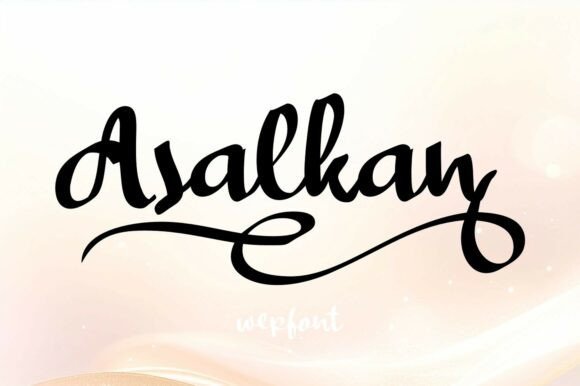
The Birth of a Masterpiece: Discovering the Asalkan Font
Have you ever found yourself scribbling notes in the middle of the night, pouring your heart and soul into a project that’s been brewing in your mind? For designers, this moment is all too familiar – the spark of creativity that sets the wheels turning and the imagination running wild. It’s in these moments that we search for the perfect tool to bring our vision to life, and that’s where the Asalkan Font comes in.
This elegant script font is a game-changer for designers, offering a sophisticated yet approachable aesthetic that’s perfect for creating unique typographic compositions. With its beautifully flowing strokes, dramatic swashes, and ligatures, the Asalkan Font is an excellent choice for projects requiring a touch of luxury and personalization.
Key Features of “Asalkan Font”
- Unique Characteristics: Asalkan Font features a unique blend of modern and traditional design elements, making it suitable for a wide range of applications, from fashion and lifestyle to technology and business.
Asalkan Font Review
Overall, I found the Asalkan Font to be an interesting addition to the world of typography. Here are some of its standout features.
- ✨ Unique aesthetic: The Asalkan Font has a distinct and eye-catching design that sets it apart from more traditional fonts.
- ✨ Versatile: I found the font to be quite versatile and suitable for a variety of applications, from headings to body text.
- ✨ Customizable: The font’s variable font technology allows for fine-tuning of its characteristics, making it a great choice for designers who value precision.
However, there are some limitations that should be taken into consideration.
- ⚠️ Limited legibility: At smaller font sizes, the Asalkan Font can become difficult to read, particularly in environments with low light or for users with vision impairments.
- ⚠️ Limited language support: The font’s design may not be suitable for languages that require complex scripts or typography.
- ⚠️ Learning curve: The font’s unique design may require some time to get used to, especially for designers who are accustomed to more traditional fonts.
Overall, I would recommend the Asalkan Font to designers who are looking for a unique and customizable typeface. However, it’s essential to be aware of its limitations and consider these factors when deciding whether to use it in a project.
Asalkan Font is a versatile font that can be used in a variety of contexts, including:
- Infographics and data visualizations
- Business cards and resumes
- Wedding invitations and event materials